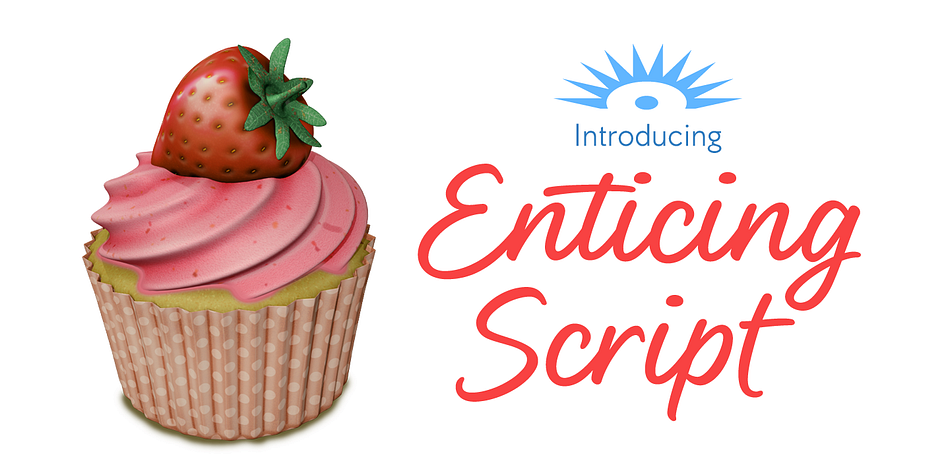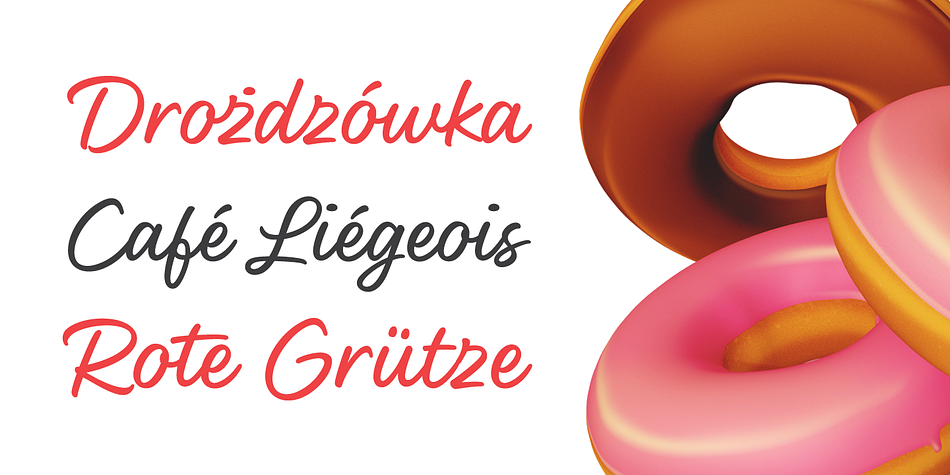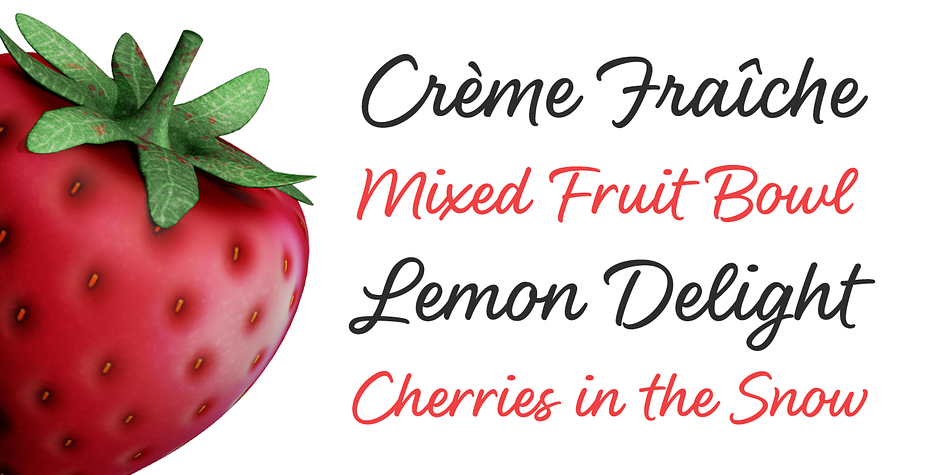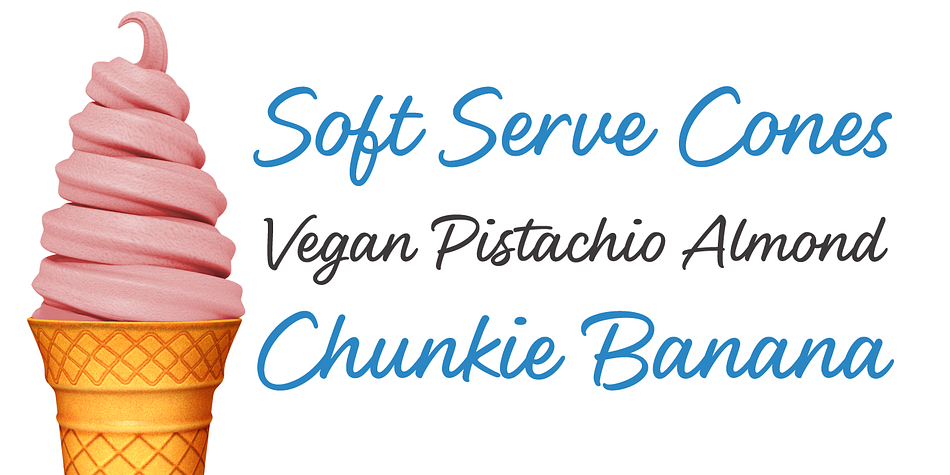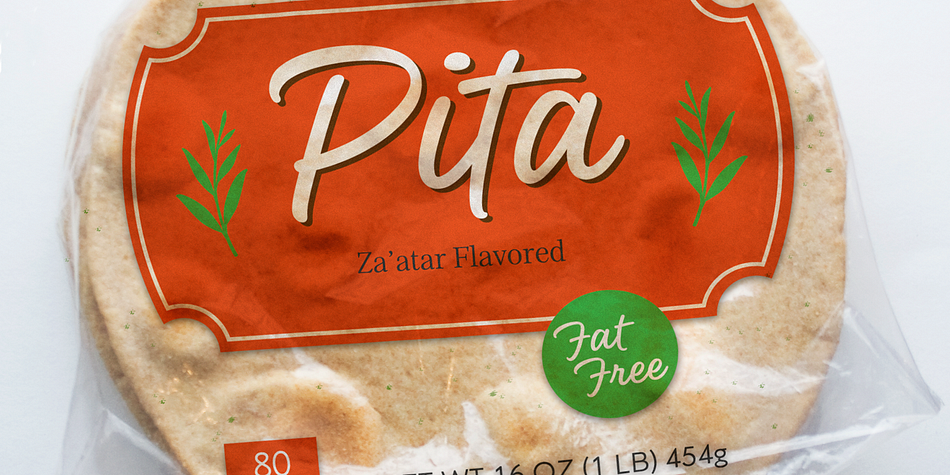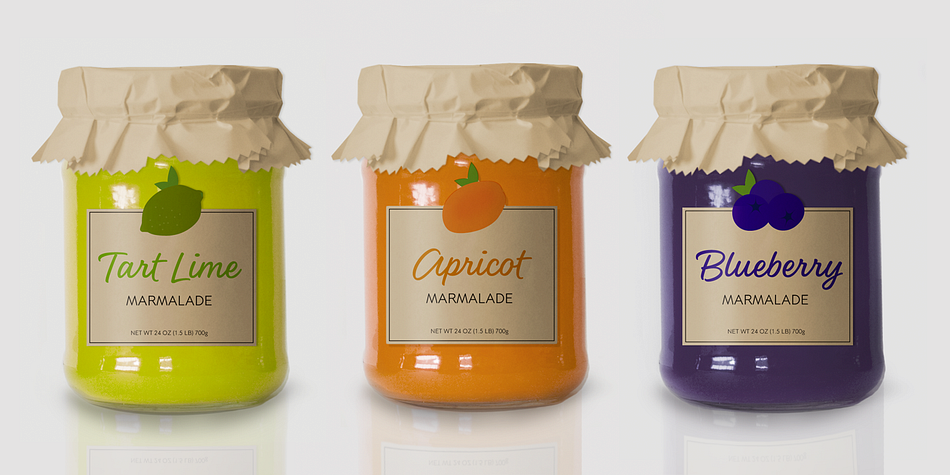
Designed by Jess Latham, Enticing Script is a script font published by Jess Latham.
Enticing Script is a clean, modern and versatile script face that was designed specifically for packaging design but will fit in just about anywhere.
It comes complete with many alternates for the upper and lower case and plenty of opentype features to explore. The stylistic set gives you a slightly more sophisticated look with a loopy lowercase l, an alternate lowercase r and more. Turn on the swash feature and you get fun little swashes on the lowercase that were expertly programmed not to trigger all at once but instead to appear at just the right moment and work in harmony with surrounding characters. Contextual alternates will create starts and endings where necessary. Ligatures are also included.
Language support is broad and extends to the Central European market. There are exactly 769 characters in this typeface.